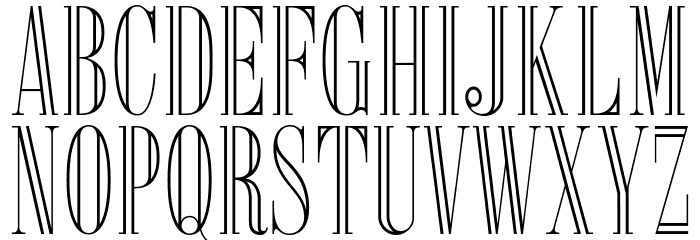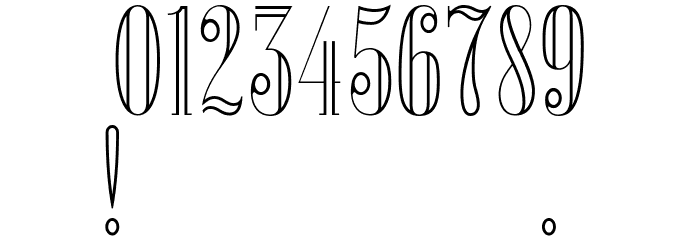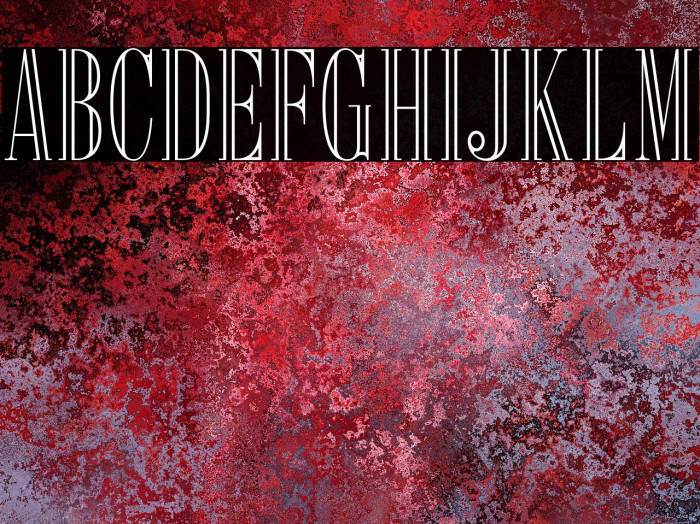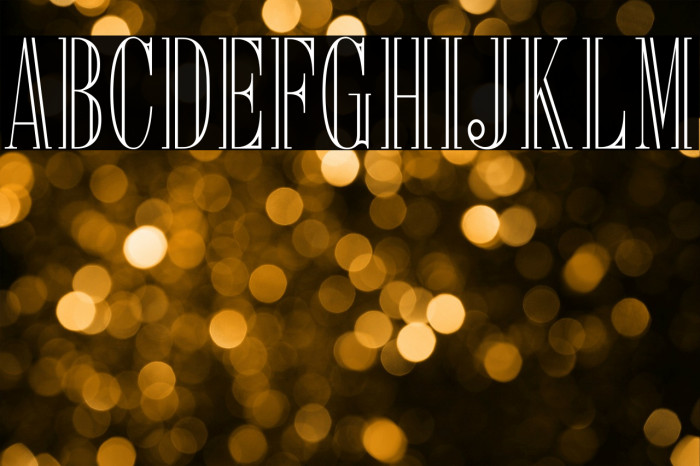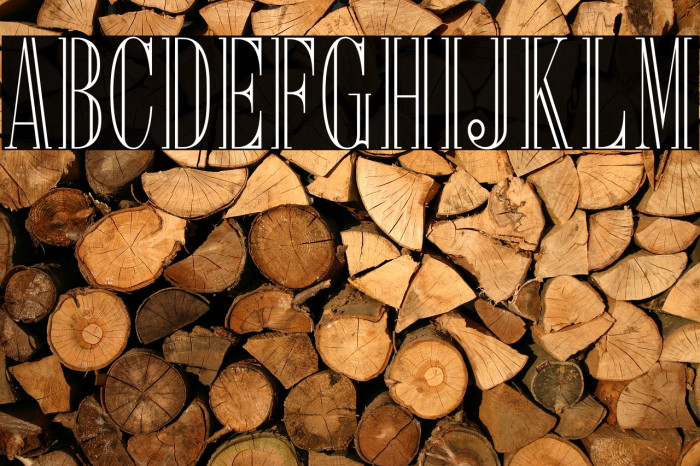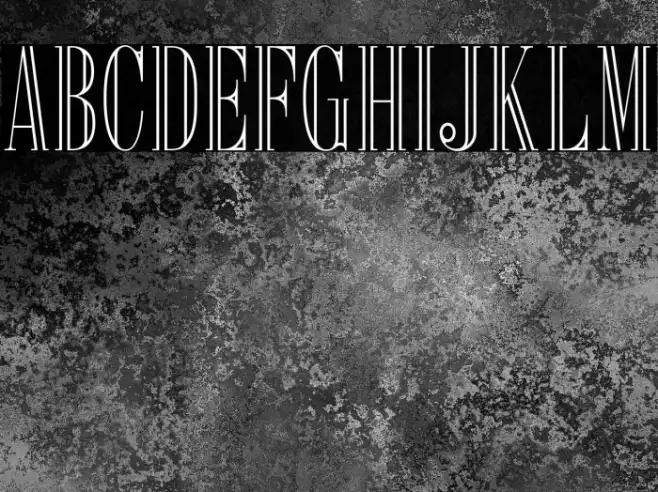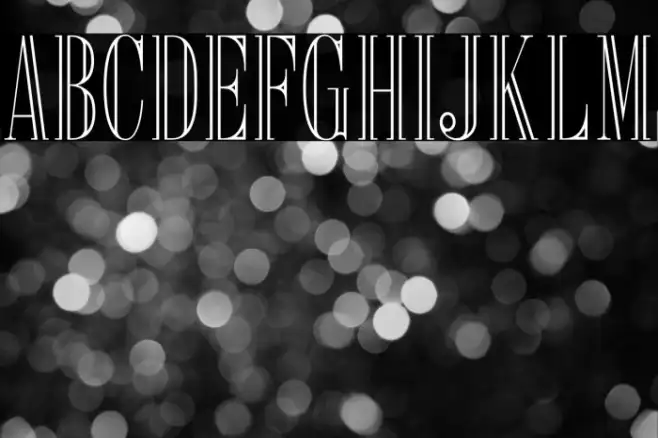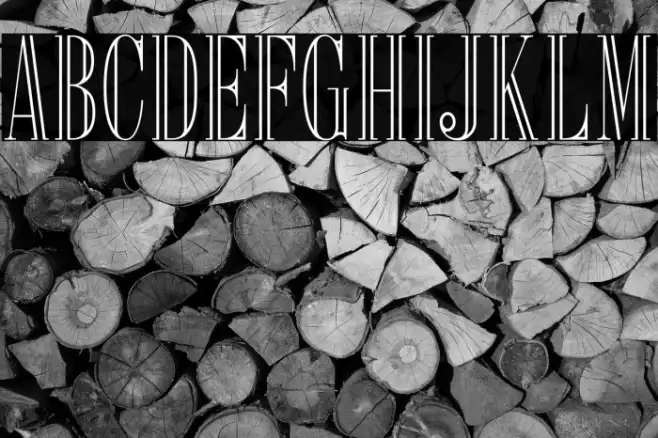
Delacorso Outlines Font
This font features an elegant and sophisticated outline style, characterized by tall, narrow letters with high contrast between thick and thin strokes. The uppercase letters are particularly elongated, giving a sense of grandeur and formality. The lowercase letters maintain the same refined aesthetic, with a consistent stroke width that enhances readability. The numerals are uniquely styled, incorporating both traditional and modern elements, which adds a distinctive flair. The special characters, such as the exclamation mark and period, are designed with the same attention to detail, ensuring a cohesive look across all glyphs. This font is ideal for projects that require a touch of elegance and sophistication, such as luxury branding, high-end invitations, or editorial design.
An elegant, high-contrast outline font with tall, narrow letters and a sophisticated style.
- Proposed Projects: Ideal for luxury branding, high-end invitations, editorial design, and sophisticated advertising campaigns.
- Overall Style: Elegant, Sophisticated
- Use Case: Headlines, Logos, Invitations